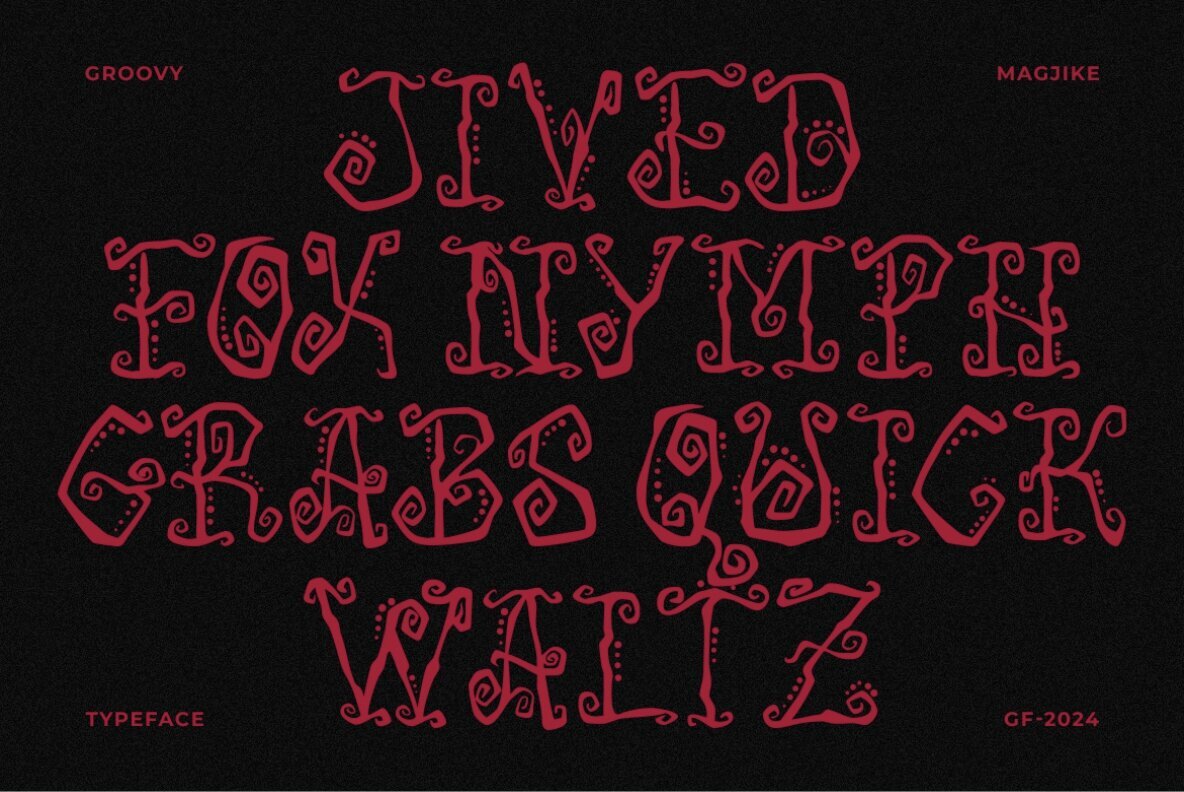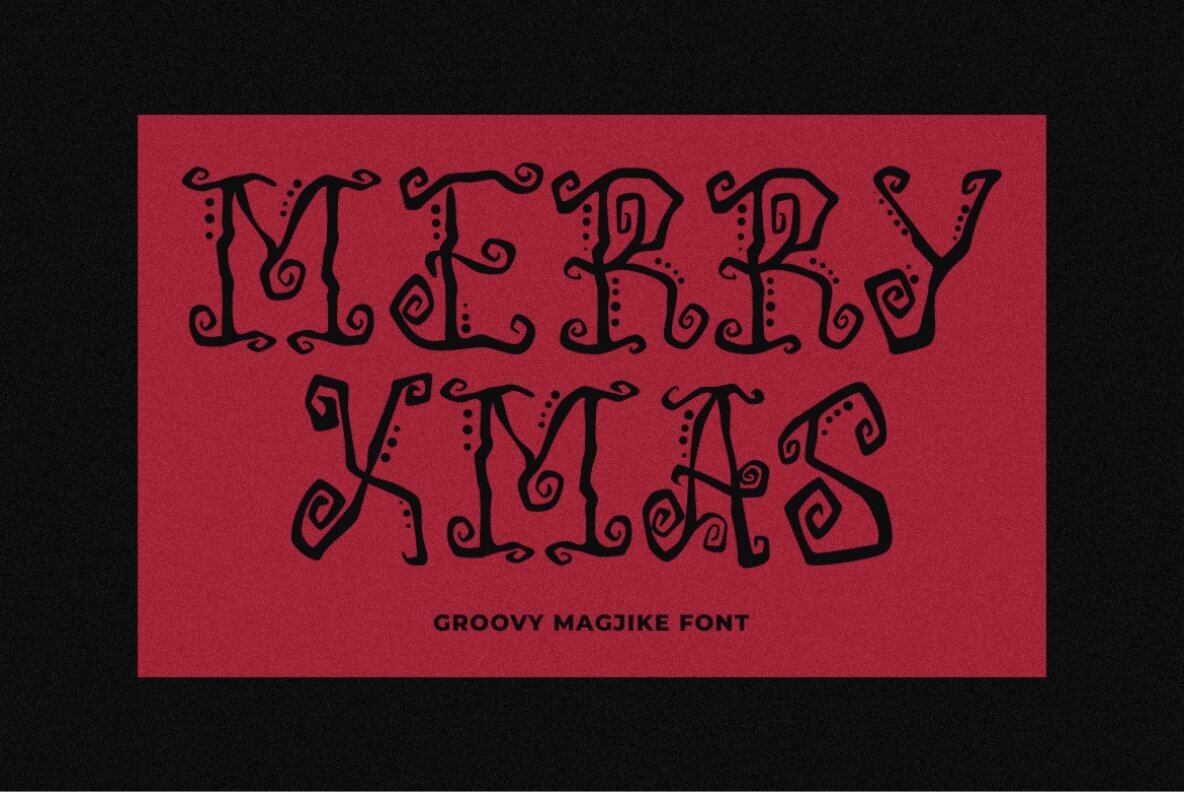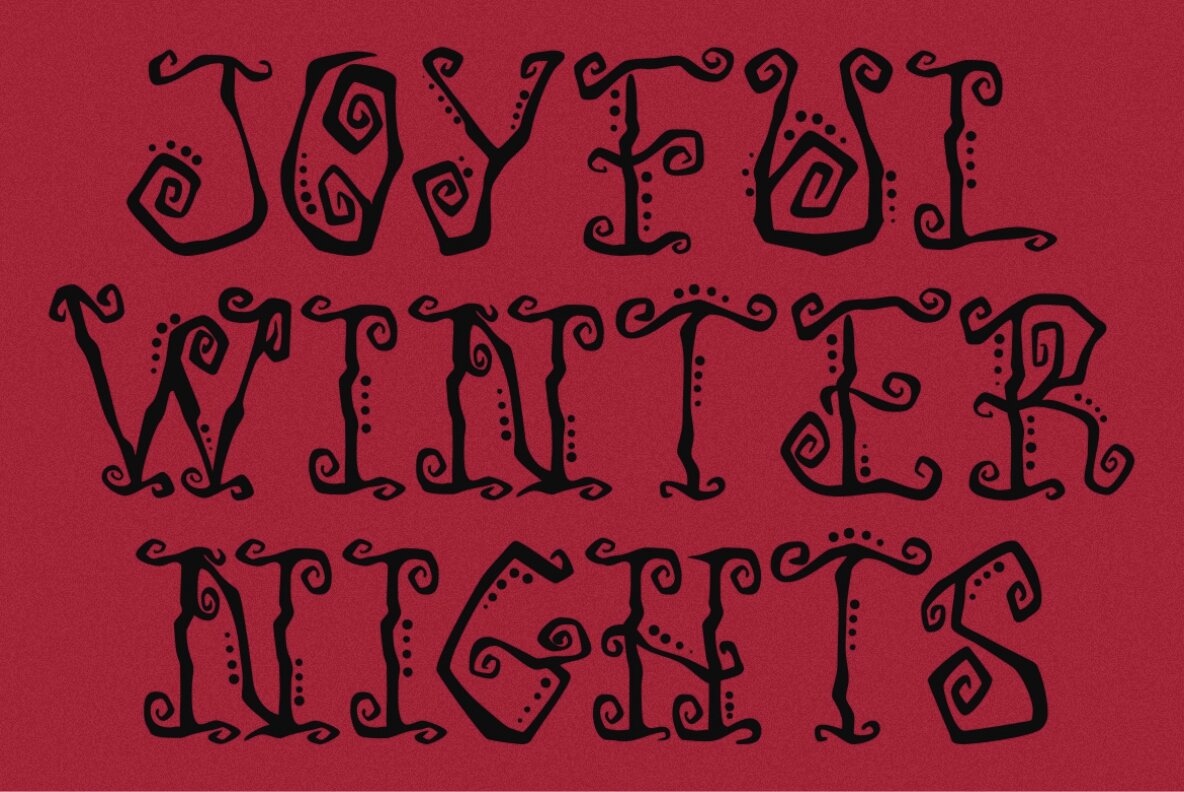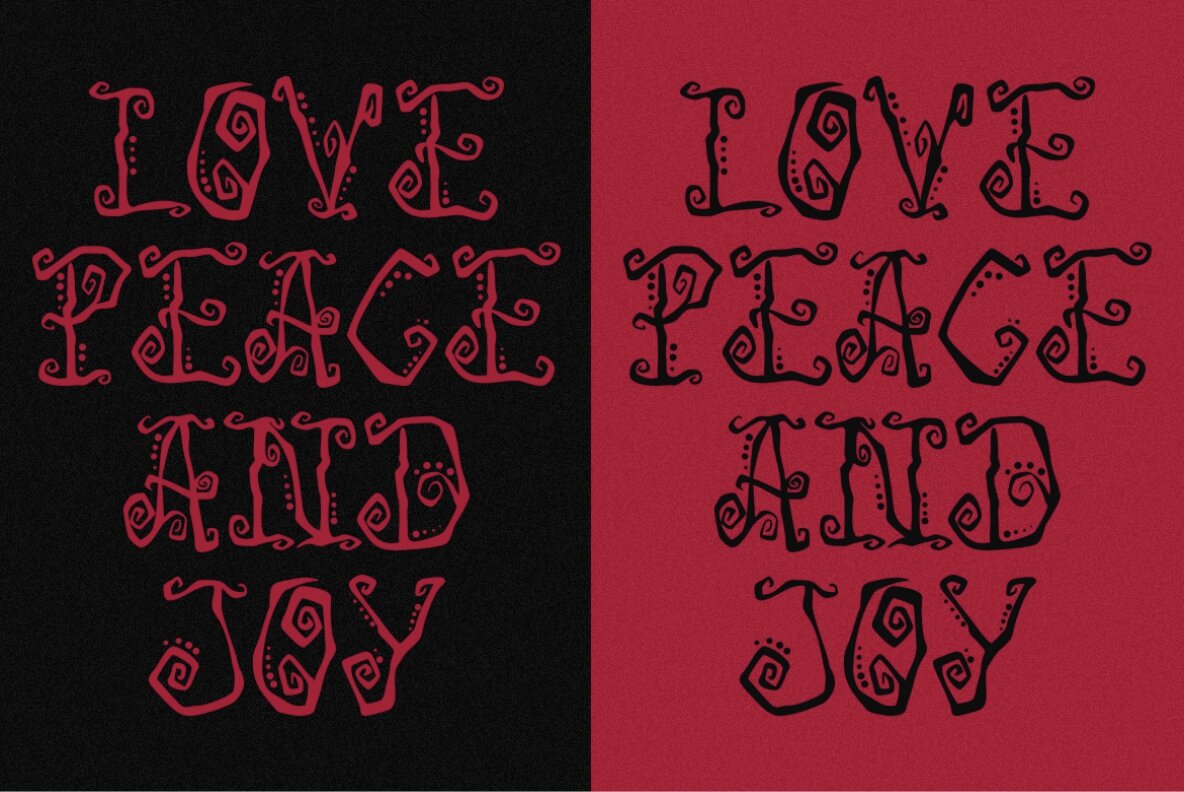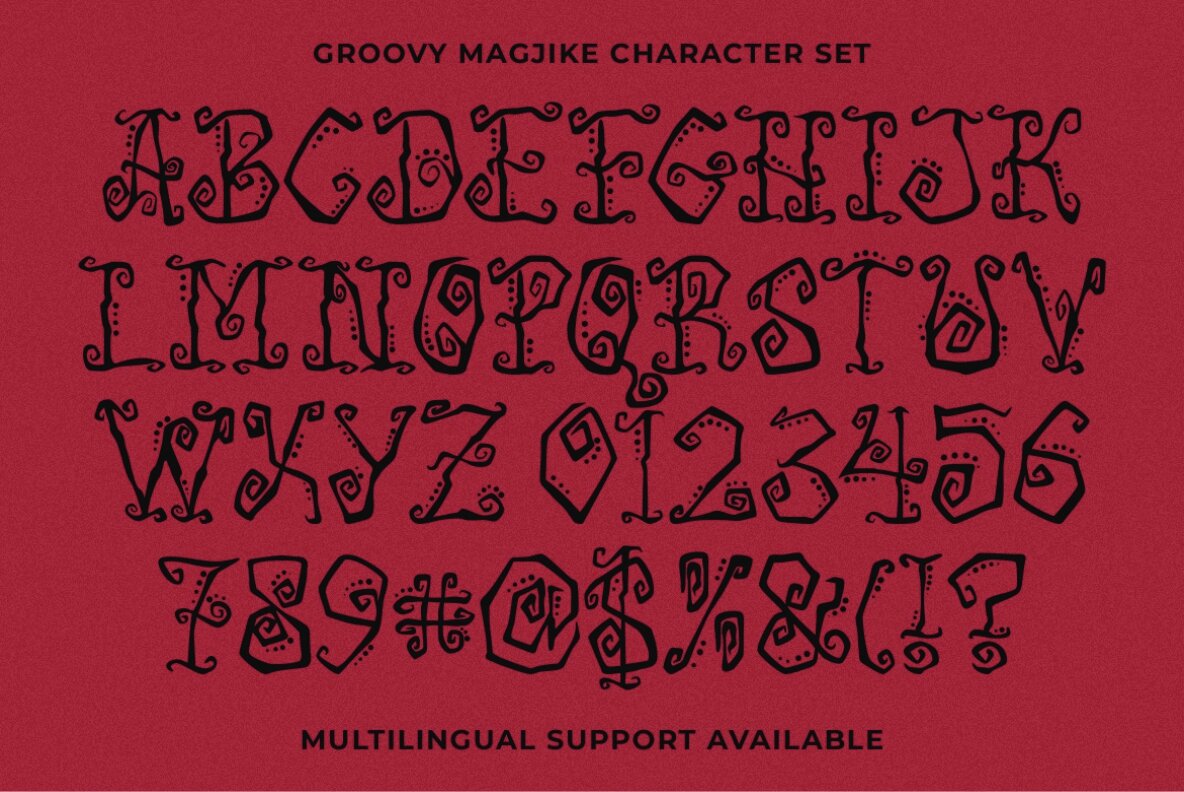
Groovy Magjike Font
Groovy Magjike
Groovy Magjike is a whimsical swirly display font that introduces an elegant touch to any design. Featuring intricate swirls and dot textures, it exudes charm and festivity, making it ideal for Christmas-themed projects. This decorative font injects a magical and playful element, enhancing the joy and creativity of your holiday designs. Embrace the artistry of Groovy Magjike to transform your creative ideas into captivating visuals.